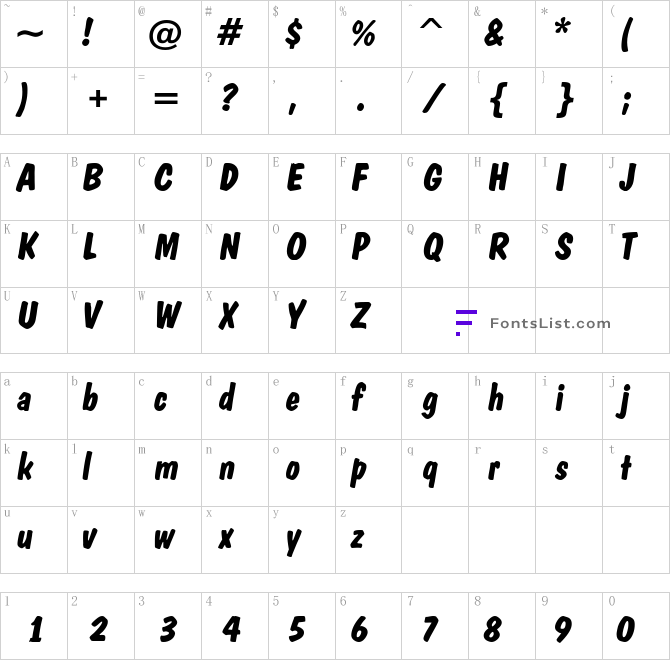
- Font Name:a_DomIno
- Subfamily:BoldItalic
- Subfamily:a_DomIno Bold Italic
- Full Name:a_DomIno BoldItalic
a_DomIno-BoldItalic.ttf is a very beautiful artistic font, a_DomIno-BoldItalic.ttf is widely used in the design and printing of various books and pictures,a_DomIno-BoldItalic.ttf has a strong visual impact,a_DomIno-BoldItalic.ttf is a commonly used font in newspapers, magazines and books, and is used in posters, e-commerce Poster design, store design, logo design, font design and other fields.a_DomIno-BoldItalic.